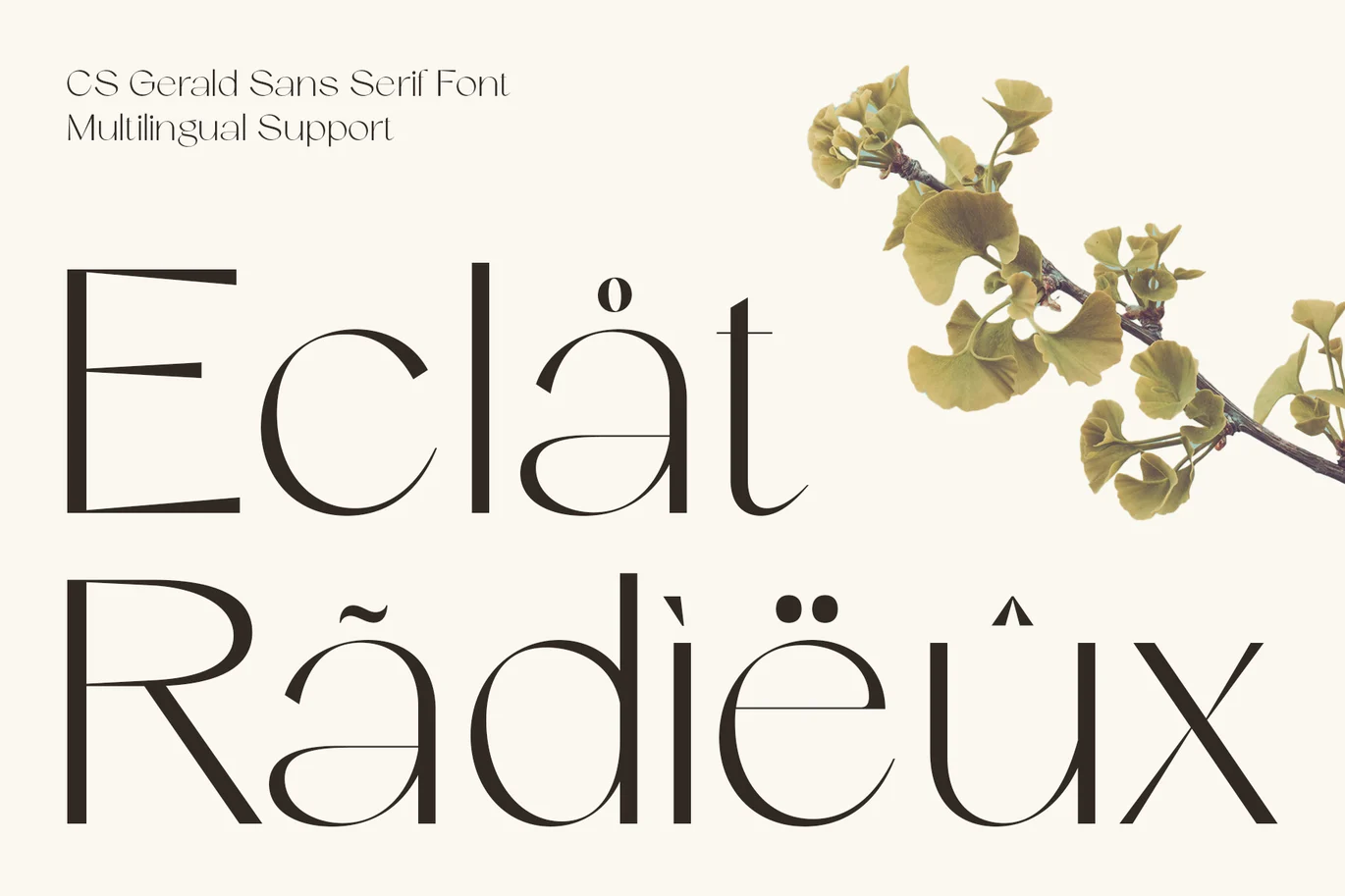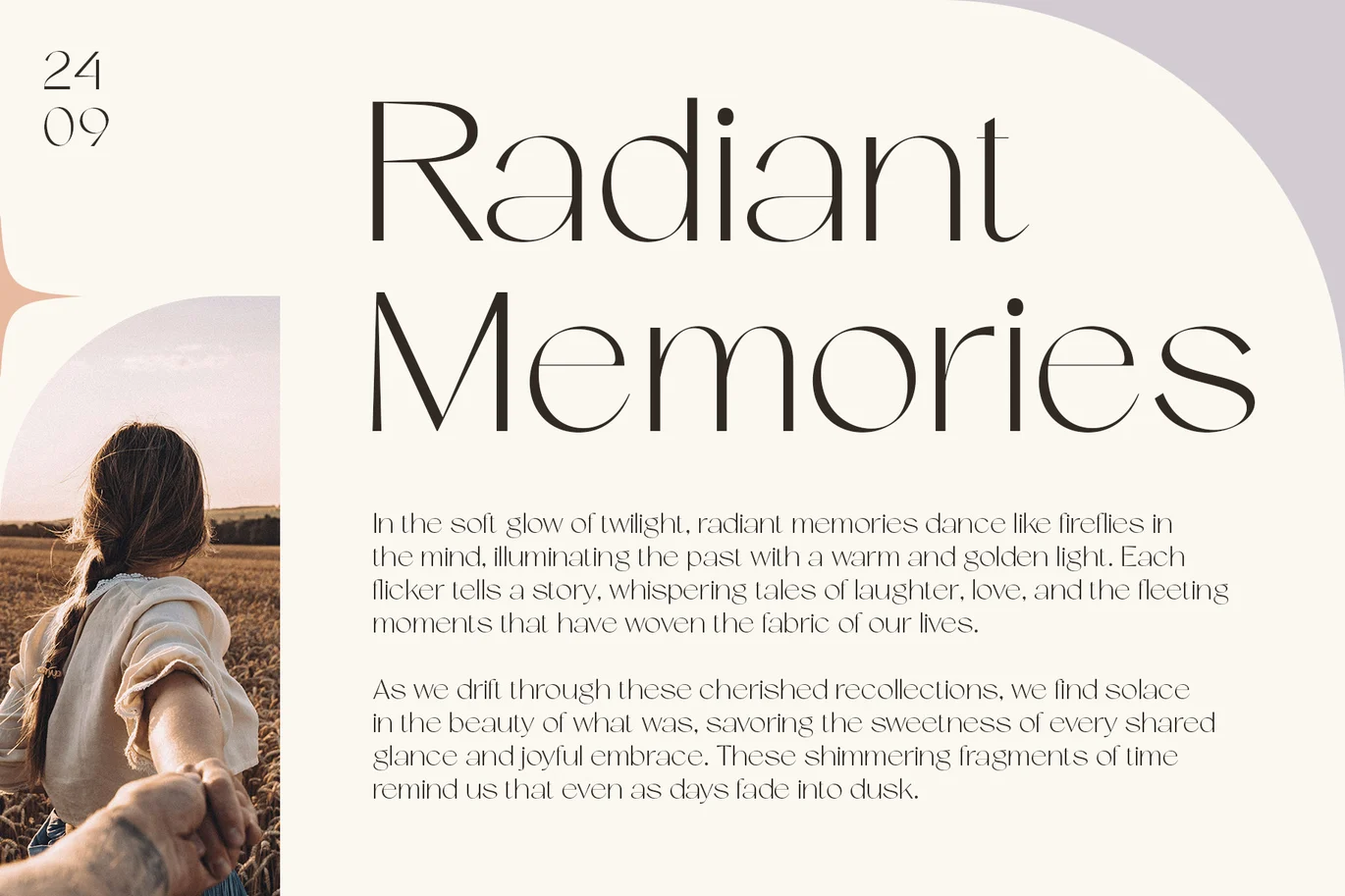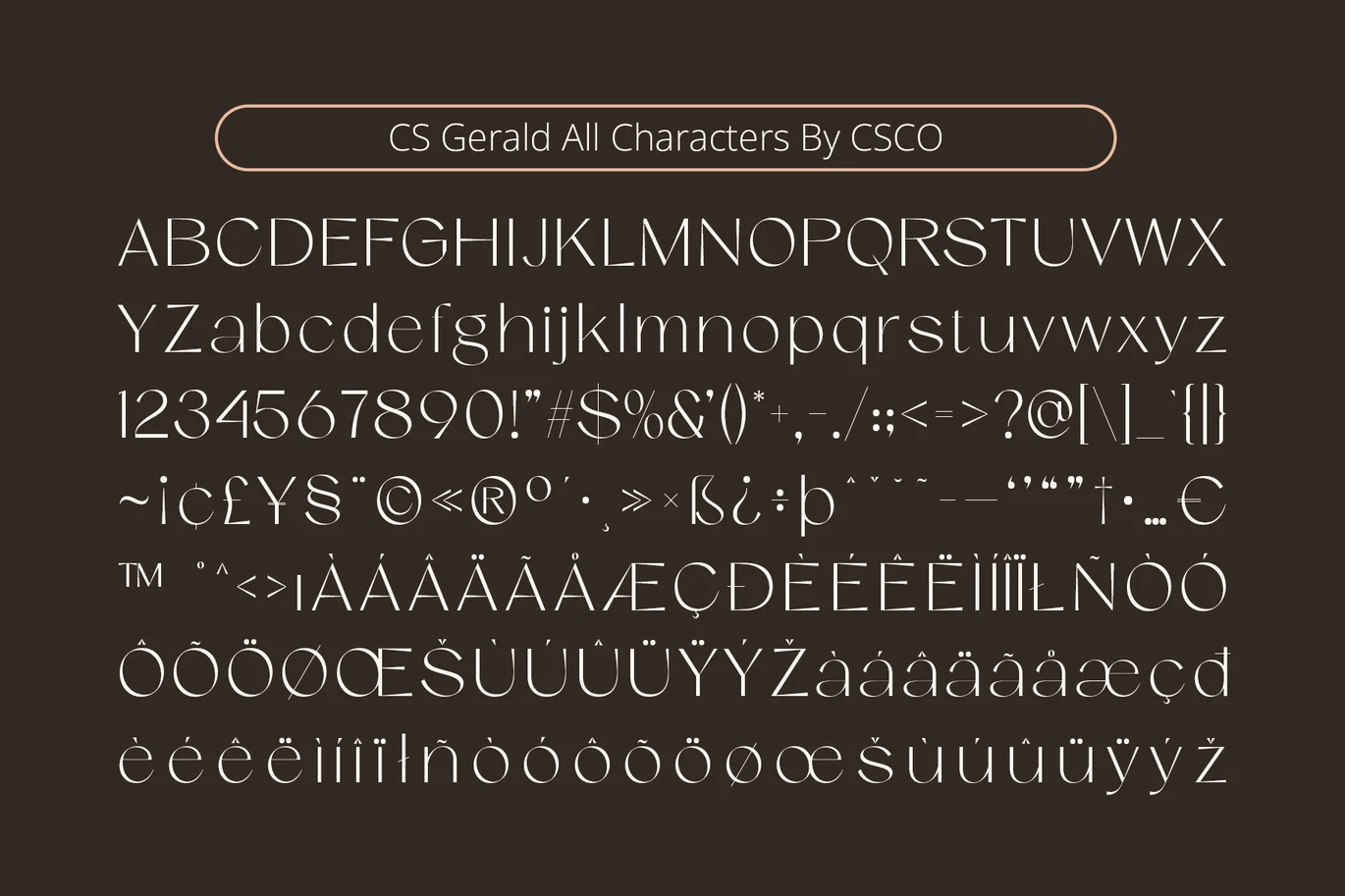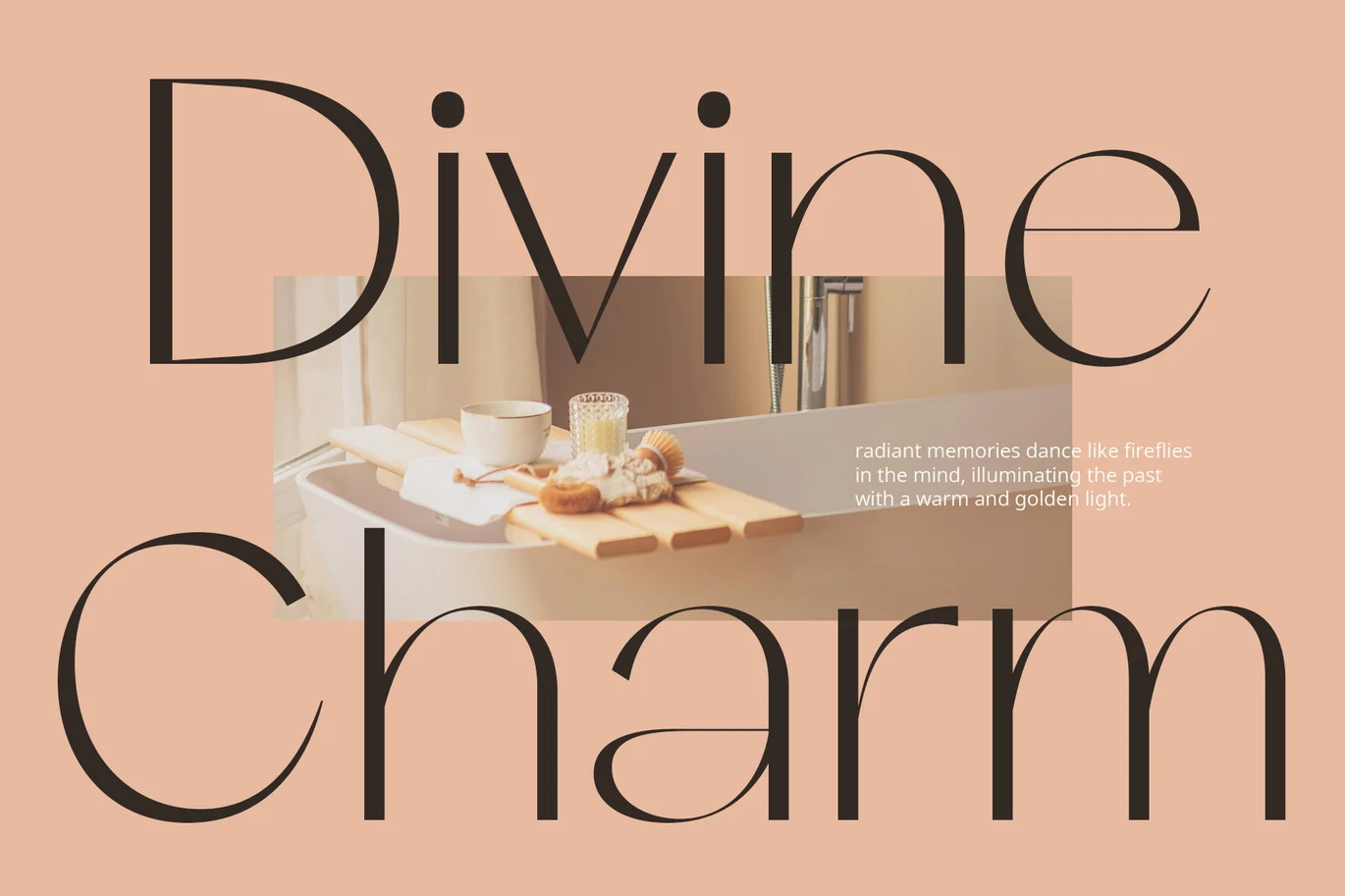
Gerald – Elegant Font
CS Gerald Font: The Epitome of Modern Elegance
Sleek and Minimalist Design
CS Gerald is a modern sans serif font that embodies the essence of elegance through its clean and minimalist design. Characterized by simple lines and balanced proportions, this font is crafted to radiate sophistication while ensuring high readability across various applications. Its smooth curves seamlessly blend with sharp edges, creating a harmonious aesthetic that enhances the overall visual appeal.
Versatile for Professional Use
With its elegant design, CS Gerald is perfect for a wide range of professional design applications. Whether you’re working on branding, invitations, promotional materials, or any project that requires a modern touch, this font delivers a sleek and refined image. Its minimalist approach makes it adaptable, allowing it to complement various styles and themes without overpowering the overall design.
Sophisticated and Calm Impression
The minimalist nature of CS Gerald radiates sophistication and calm, making it an ideal choice for brands that aim to convey a sense of luxury and professionalism. Its unobtrusive appearance ensures that it can communicate messages clearly while maintaining a strong presence. This quality makes it suitable for both formal and contemporary contexts, effectively capturing attention without being distracting.